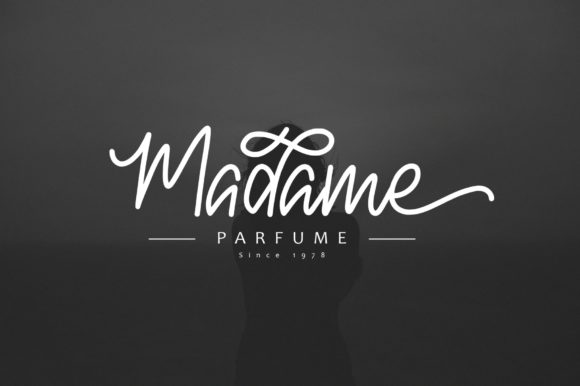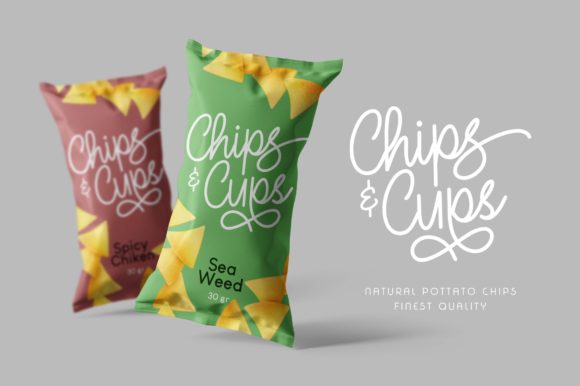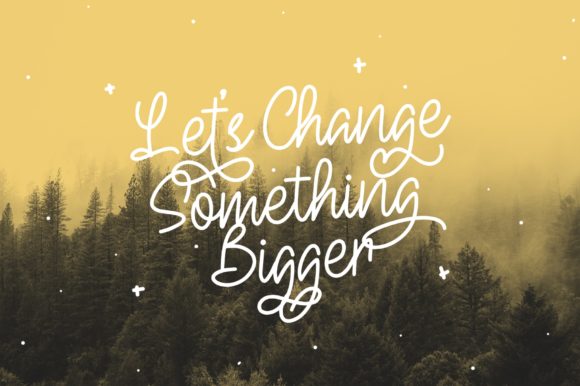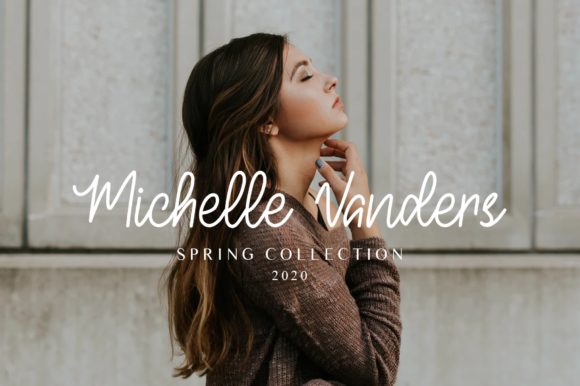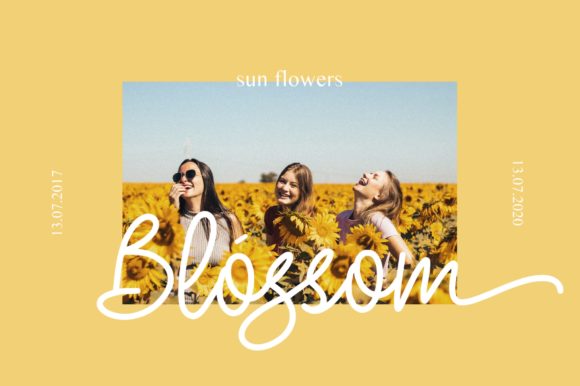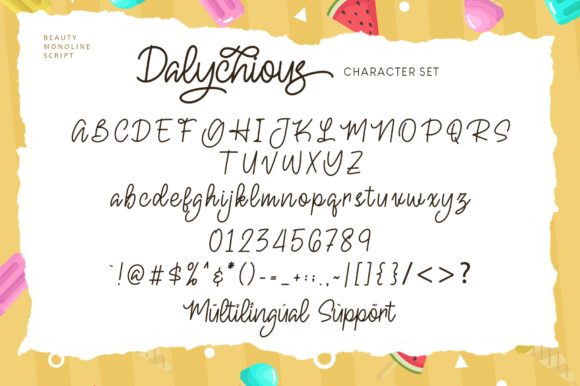
The Dalychious Font: A Distinct and Round Lettered Handwritten Delight
I’ll never forget the time I was working on a wedding invitation project for a client, and I just couldn’t seem to find the perfect font. The client wanted something elegant, yet playful; something that would make their special day stand out. That’s when I stumbled upon the Dalychious font. It was love at first sight! 💕
This distinct and round lettered handwritten font has since become a staple in my design toolkit, and I’m excited to share its beauty with you. Whether you’re a designer, crafter, or creative hobbyist, Dalychious is sure to bring a touch of warmth and personality to your projects.
An Honest Review of Dalychious
- ✨ Beautifully crafted, round letterforms that exude elegance and sophistication
- ✅ Perfect for wedding invitations, thank you cards, quotes, greeting cards, logos, business cards, and more
- ✅ Works well with both digital and print designs
- ✨ Highly legible, even at smaller font sizes
While Dalychious is an amazing font, there are a few things to keep in mind:
- ⚠️ May not be suitable for very long blocks of text, as it can be a bit ornate
- 🤔 Limited availability of certain OpenType features, such as ligatures
The Backstory of Dalychious
Dalychious was designed by a talented type designer who wanted to create a font that would bring a touch of warmth and personality to designs. The font’s name is inspired by the combination of “dally” and “chic,” reflecting its playful yet sophisticated feel.
Q: What type of designs is Dalychious best suited for?
A: Dalychious is perfect for designs that require a touch of elegance and sophistication, such as wedding invitations, thank you cards, quotes, greeting cards, logos, business cards, and more.
Q: Is Dalychious a script font?
A: While Dalychious has some script-like qualities, it’s actually a handwritten font with a mix of print and script letterforms.